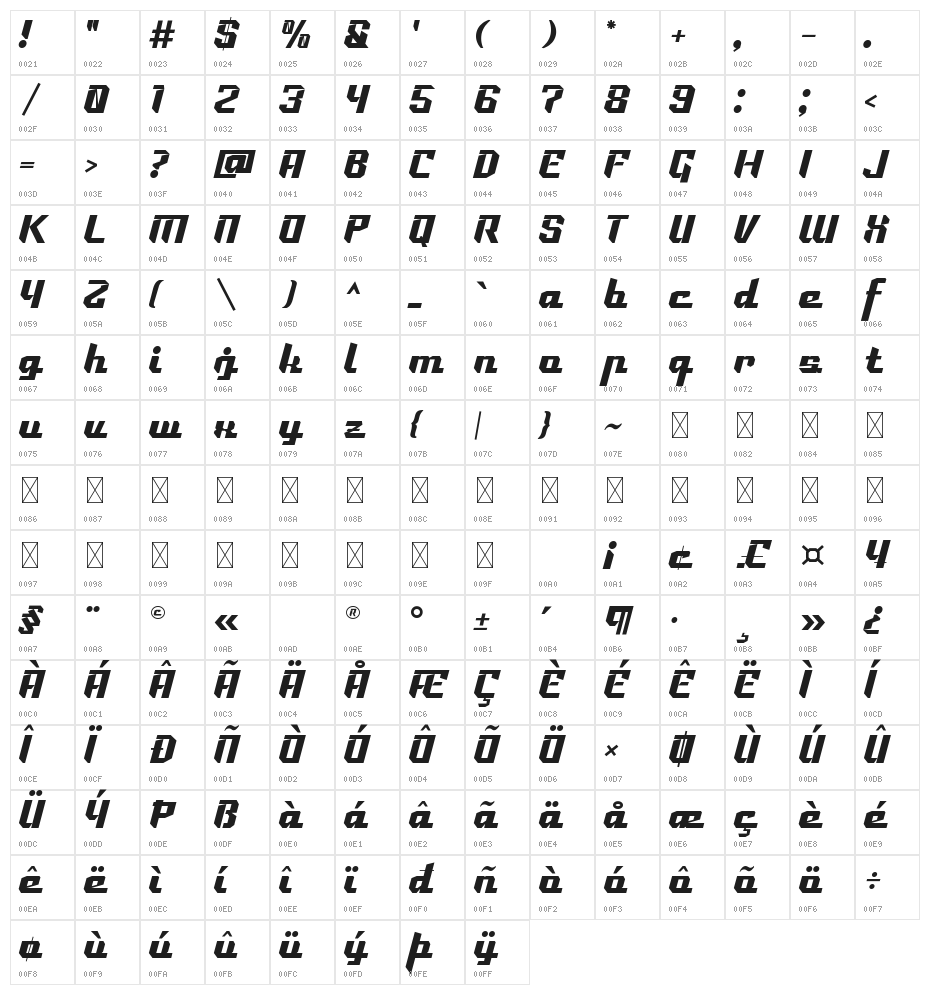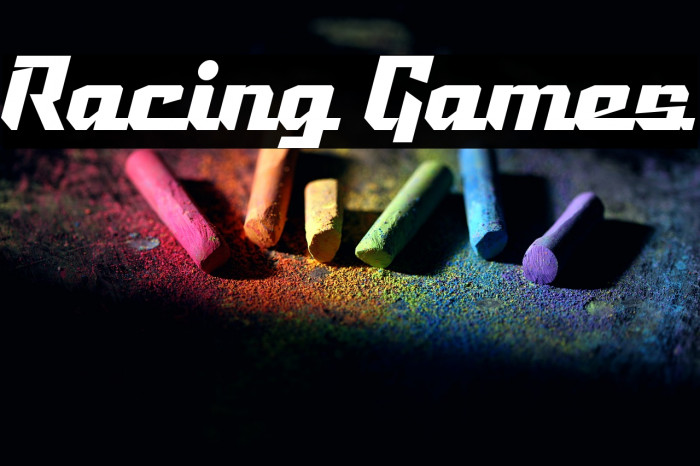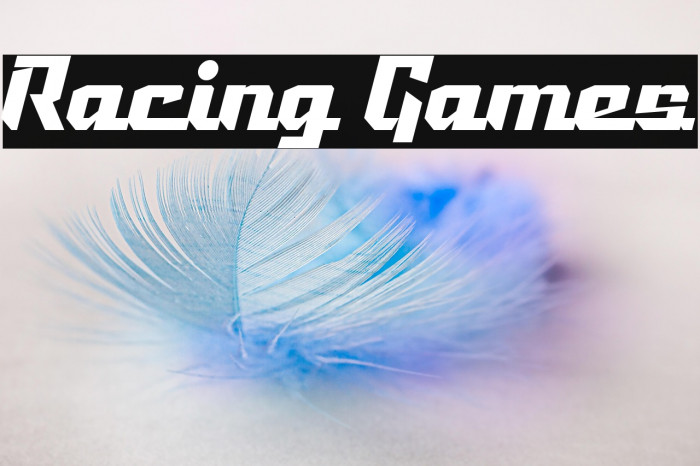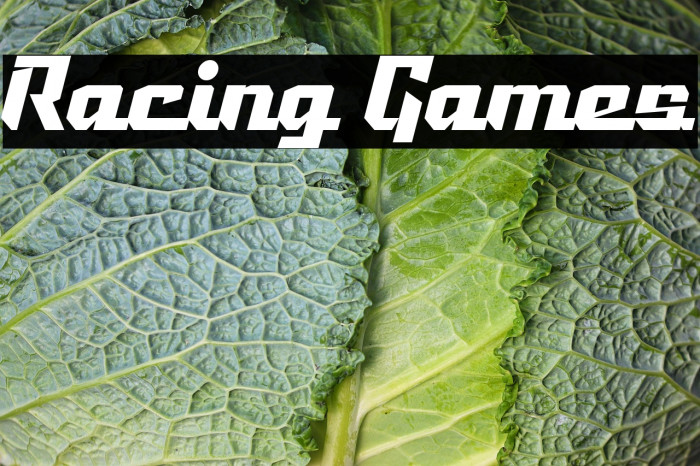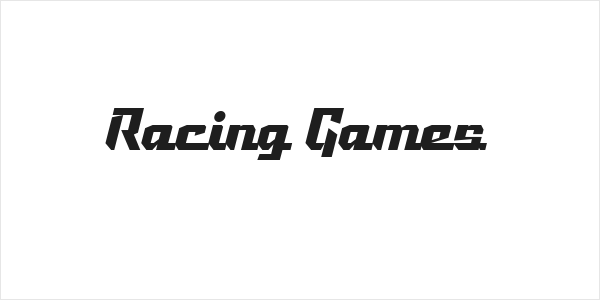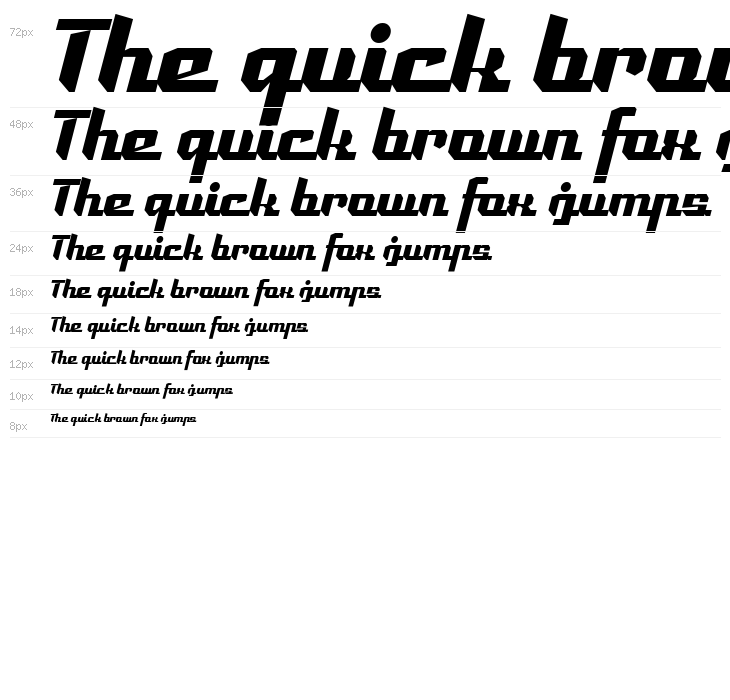
Racing Games Font
Racing Games Description
A bold, angular font with a dynamic, italicized style, reminiscent of speed and motion, suitable for racing themes.
| Overall Style | Modern, Dynamic |
| Proposed Projects | Racing game titles, sports branding, dynamic posters. |